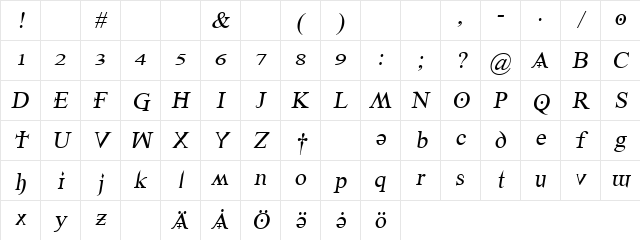
Denial2RegularItalics Regular
Design Context for Denial2RegularItalics
Denial2RegularItalics is a composed and adaptable typeface that performs quietly and consistently across a wide range of design contexts. The slanted form adds forward momentum and visual energy.